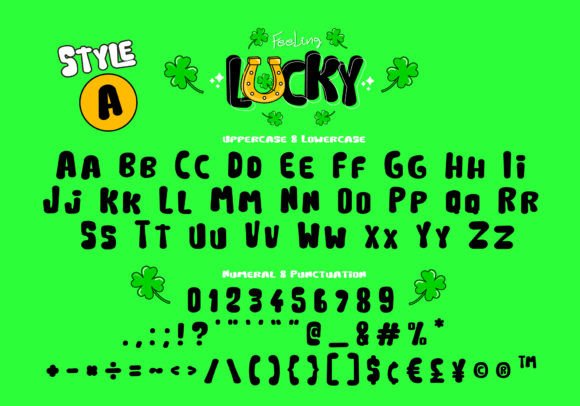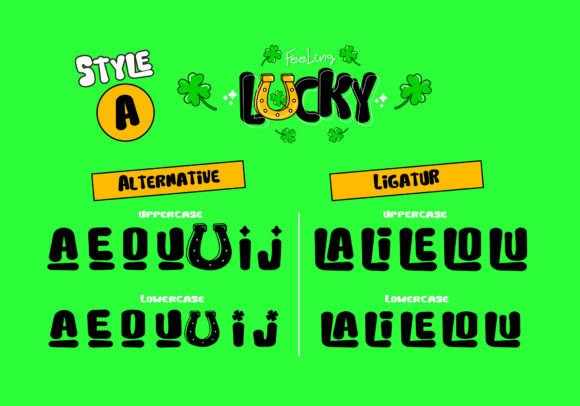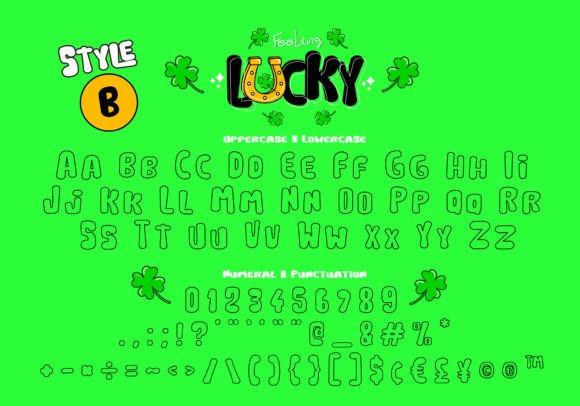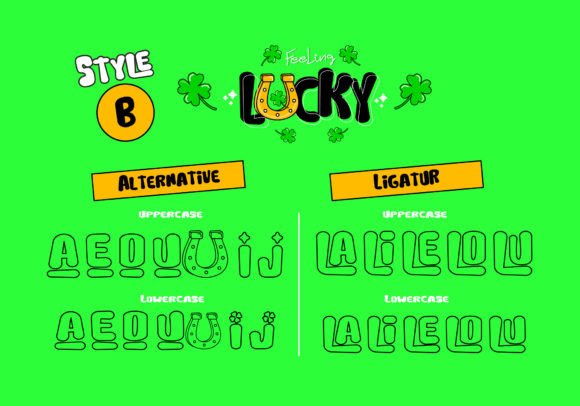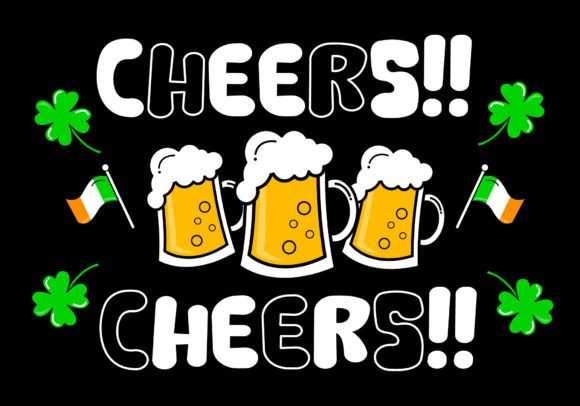
The Perfect Combination of Luck and Style: Felling Lucky Font
Have you ever been brainstorming ideas for a new project, flipping through design inspiration boards, and suddenly, a spark of creativity hits you? You envision a bold, eye-catching font that screams youthfulness and courage, making your audience go wild. This is exactly what Felling Lucky Font is all about – igniting that spark and taking your design to the next level.
Felling Lucky Font is a one-of-a-kind display font that’s designed to make a statement. With its unique and playful style, it’s perfect for comic book-inspired projects, online games, cards, love shirts, posters, movie titles, and eye-catching social media posts. As a designer, you’ll appreciate the fact that this font is PUA encoded, making it effortless to access all glyphs and swashes. Whether you’re working on a personal or professional project, Felling Lucky Font is sure to bring a touch of magic to your designs.
Felling Lucky Font Key Features
- Font Family: Felling Lucky Font is a unique, hand-drawn sans-serif font family that includes 6 styles: Thin, Light, Regular, Medium, Bold, and Black.
- Character Set: The font family includes a comprehensive character set, including uppercase and lowercase letters, numerals, punctuation marks, and special characters.
- Unique Characteristics: Felling Lucky Font features a distinctive, hand-drawn aesthetic with subtle imperfections, giving it a human touch and a unique feel.
Felling Lucky Font Review
I recently had the chance to work with the Felling Lucky Font, and overall, I’m impressed with its unique charm. ✨ The font’s quirky, vintage vibe is perfect for projects that need a touch of whimsy.
Here are some aspects where the font truly shines:
- Playful Expressiveness: Felling Lucky Font is ideal for creating eye-catching headlines and titles that pop.
- Distinct Character Set: The font’s extensive character set allows for a wide range of creative possibilities.
- High-Quality Typography: The font’s letterforms are well-crafted and visually appealing.
- Limited Legibility: In smaller font sizes, Felling Lucky Font can become difficult to read.
- Not Suitable for Body Text: Due to its playful nature, Felling Lucky Font may not be the best choice for lengthy paragraphs or body text.
- Dependence on Context: The font’s effectiveness heavily relies on the project’s overall design and aesthetic.
Overall, I think Felling Lucky Font is a great addition to any designer’s toolkit. With its unique charm and expressive qualities, it’s perfect for projects that need a touch of personality.
Tips for Getting the Most Out of the Felling Lucky Font
Use the Felling Lucky Font to add a playful and whimsical touch to your designs.
Pair the font with bright colors and bold graphics for maximum impact.
Use the Felling Lucky Font for:
1. Party invitations and decorations.
2. Social media graphics and posts.
3. Branding and marketing materials.
4. Gift tags and labels.
Alternatives to Felling Lucky Font
The Great Vibes Font is a beautiful, elegant script font that can add a touch of sophistication to any design. It is perfect for use in wedding invitations, branding, and other creative projects where a unique and stylish look is desired. Compared to Felling Lucky Font, Great Vibes Font has a more refined and polished appearance, making it suitable for formal and high-end designs.
The Pacifico Font is a beautiful, modern script font that is perfect for use in creative and artistic projects. It has a relaxed, casual feel that makes it ideal for use in travel, food, and lifestyle designs. Compared to Felling Lucky Font, Pacifico Font has a more laid-back and effortless appearance, making it suitable for designs that require a carefree and spontaneous feel.